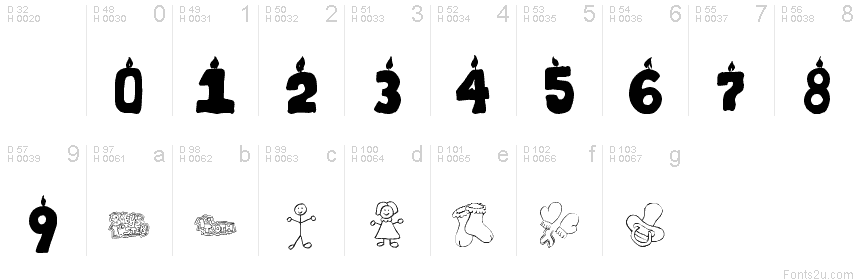
KR First Years Dings
KR First Years Dings font by Katsfunfonts is a free dingbat typeface that turns every keystroke into a tiny celebration of early childhood. Plump rattles, chubby teddy bears, onesies, bottles, and playful strollers are drawn with soft, rounded lines that feel hand-sketched and friendly. The icons remain clean and bold even at small sizes, so they’re easy to drop into layouts without getting fussy or muddy.
Using KR First Years Dings, you can quickly decorate baby shower invitations, birth announcements, scrapbooking pages, milestone cards, nursery prints, and party favors without hunting for separate clip art. This free font works beautifully alongside a simple rounded sans serif-set the text in a light weight, then sprinkle these dingbats as borders, bullets, or centerpieces for instant, cohesive baby-themed designs.